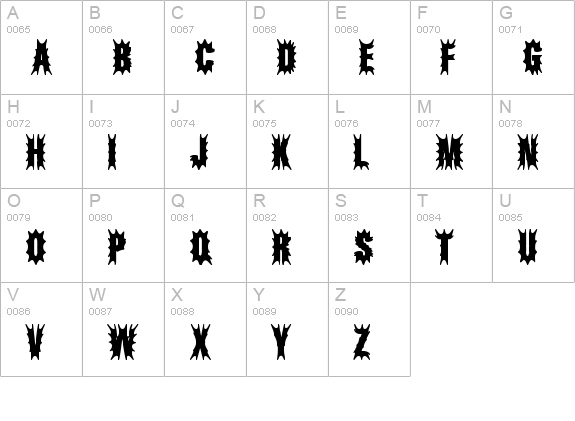
Aftermath BRK Font Details
Aftermath BRK is a striking display font that exudes a sense of resilience and boldness. Its sharp edges and strong lines give it a modern and edgy look, making it perfect for eye-catching headlines, logos, and posters. The font carries a sense of aftermath, as if emerging victorious from a challenge, making it ideal for projects that require a strong and impactful visual presence. One of the best things about Aftermath BRK font is that it is completely free to download at FontsMarket.com. This means you can easily access this powerful font and incorporate it into your designs without any cost. With its unique style and versatility, Aftermath BRK font is sure to enhance any creative project and leave a lasting impression on viewers.